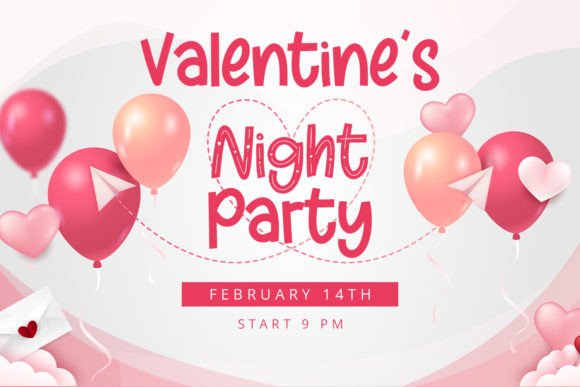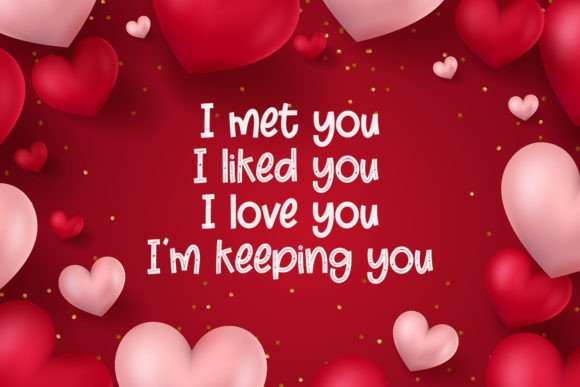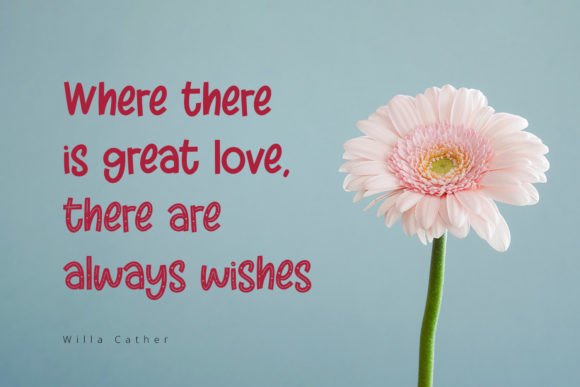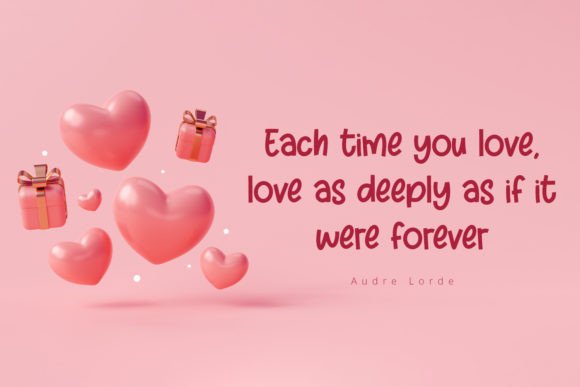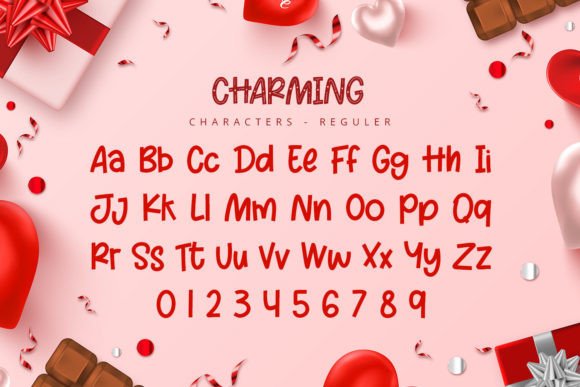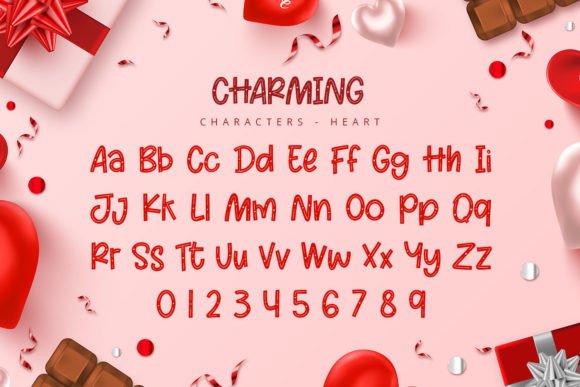
The Perfect Blend of Class and Whimsy: Introducing Charming Font
Do you remember that moment when you stumbled upon the perfect font for your design project, and suddenly, everything fell into place? The words flowed effortlessly, the colors harmonized, and the overall vibe just felt… right. That’s the magic of finding the perfect font, and we’re excited to introduce you to one that will make your designs shine – the Charming Font.
This romantic display and decorative duo font is designed to evoke a sense of class and casual elegance, making it perfect for a wide range of design projects. Whether you’re creating a logo, designing a poster, or developing a brand identity, the Charming Font is sure to add a touch of sophistication and whimsy to your work. As a designer, you know how valuable it is to have a versatile font that can adapt to different styles and moods – that’s exactly what the Charming Font offers.
Key Features of Charming Font
- Font Family: Charming Font comes in two font families – Regular and Bold.
- Character Set: The font supports a wide range of languages, including Latin, Cyrillic, and Greek alphabets.
- Unique Characteristics: Charming Font features elegant and refined letterforms, with subtle flair and curves that add a touch of sophistication to any design.
Charming Font Review
Overall, I’m really pleased with the Charming Font, but like any font, it’s not perfect. Here are my thoughts:
- Beautifully designed script lettering, perfect for adding a touch of elegance to headings and titles.
- Excellent for use in creative fields like fashion, art, or design, where a sophisticated look is key.
- Works well in digital and print formats, making it a versatile choice for designers.
- High-quality rendering, even at small font sizes.
- Not ideal for body text, as it can be difficult to read at smaller font sizes due to its intricate design.
- May not be suitable for use in very formal or professional contexts, as its script style may be seen as too playful.
- Requires careful pairing with other fonts to avoid visual clutter and maintain legibility.
In conclusion, the Charming Font is a lovely addition to any designer’s toolkit. While it has its limitations, it’s perfect for adding a touch of whimsy and sophistication to creative projects. Just be mindful of its use cases and pair it thoughtfully with other fonts for the best results.
Tips for Getting the Most Out of Charming Font
Here are some tips to help you get the most out of Charming Font:
- Use Charming Font for headings and titles to add a touch of elegance to your designs.
- Pair Charming Font with other elegant fonts to create a cohesive and sophisticated look.